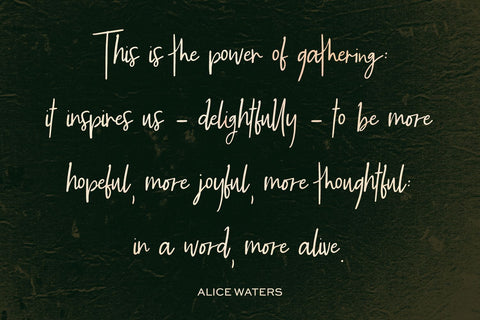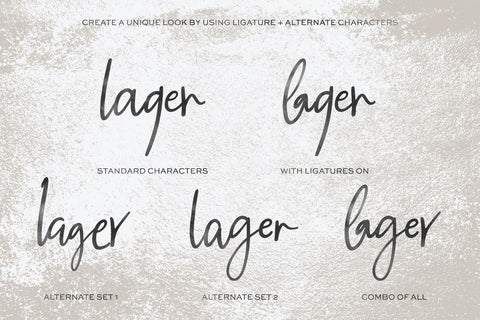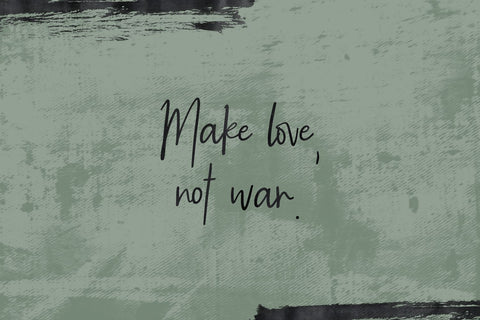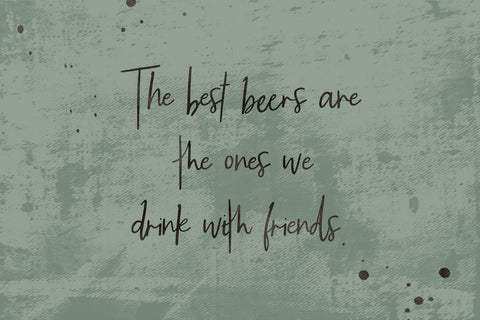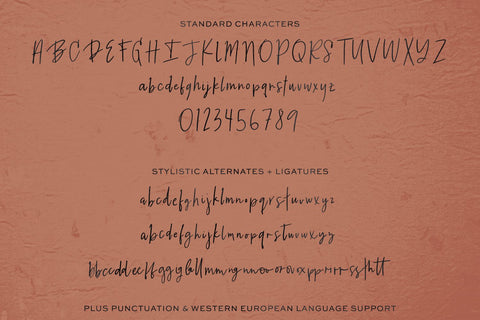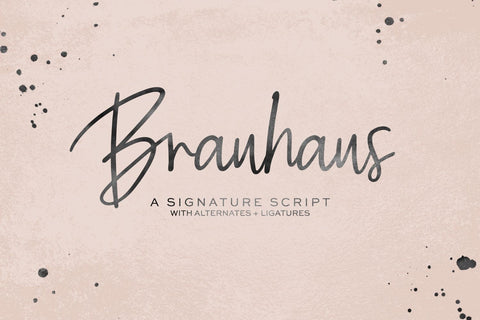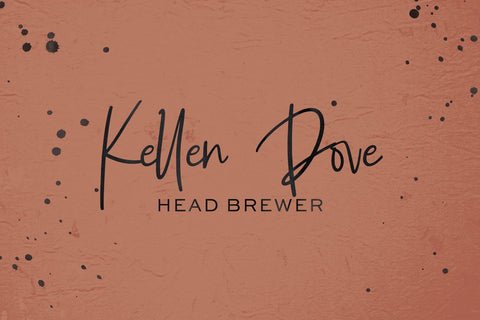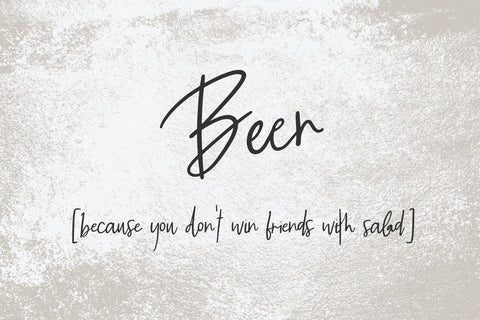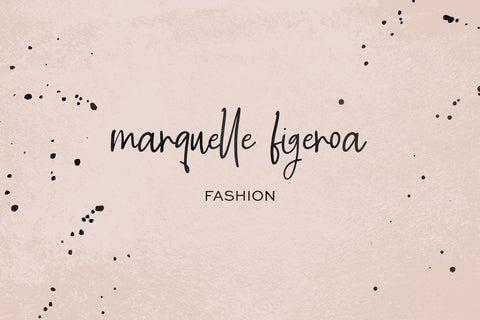
Brauhaus Script Font
Brauhaus Script is a signature style script. Brauhaus mimics the imperfect flow of handwriting, and is full of alternates and ligatures that enhance the handwritten look!  While Brauhaus takes on a more masculine feel, it would also be a great fit for slightly feminine projects that need an edgy aesthetic.
Brauhaus Script is an excellent fit for:
- logo design + branding projects
- print design, like magazines & flyers that need handwritten elements to draw attention
- header elements + websites needing an edgy, moody touch
- quote graphics for social media
Brauhaus Script includes:
- full upper + lowercase characters
- numbers + punctuation
- Western European Language Support
- 52 lowercase letter alternates
- 22 common ligatures